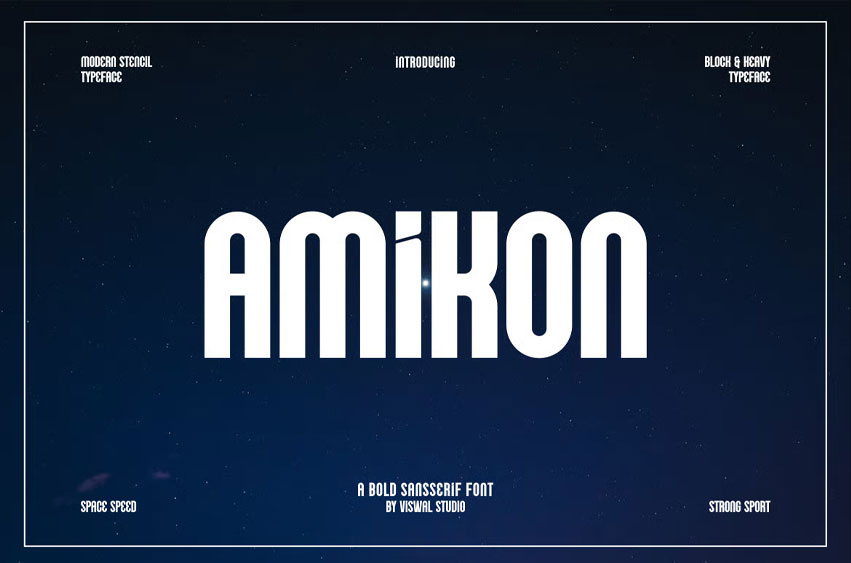
Amikon Font is a modern, rounded typeface that effectively conveys messages in your designs. It is ideal for logos, labels, badges, branding, magazines, posters, titles, events, covers, and more. Our font package includes both uppercase and lowercase letters, numerals, punctuation, and OpenType features.
For stunning designs, you can also mix Amikon Font with other typefaces as complementary options.
Amikon Font Preview